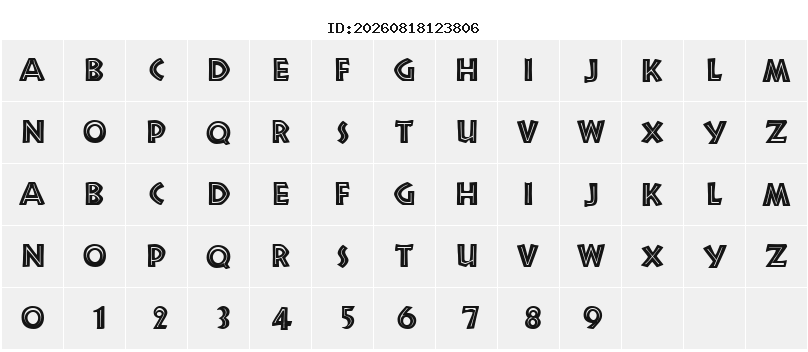
SnakeRiver DB Preview
About SnakeRiver DB.ttf
SnakeRiver DB.ttf is a modern, elegant sans-serif font designed for ultimate readability and visual harmony. Perfect for branding, headlines, web design, and print materials.